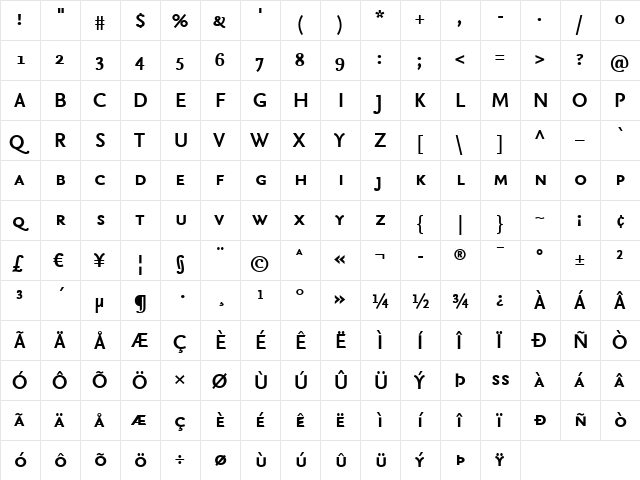
| Foundry | Martin Majoor, published by Fontshop International for the FontFont library |
Design Context for SeriaSans-BoldItalicCaps Typeface
SeriaSans-BoldItalicCaps offers clean, dependable letterforms without strong stylistic allegiance, making it a practical choice for designers who need flexibility. The dynamic lean of this cut emphasises speed and emphasis in any layout. Its bold stroke weight gives it real presence on the page.